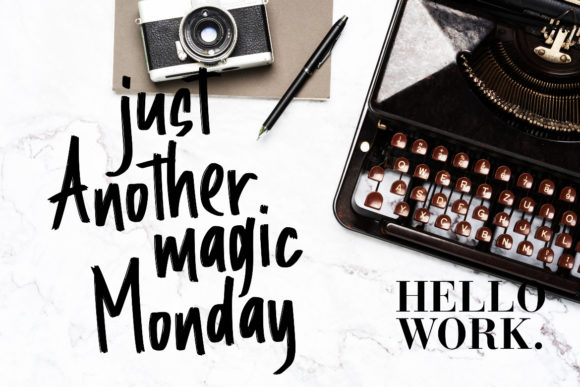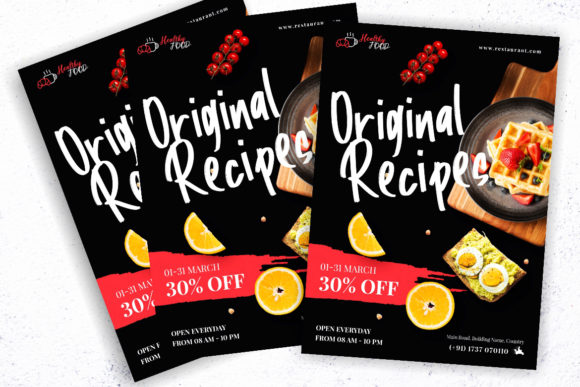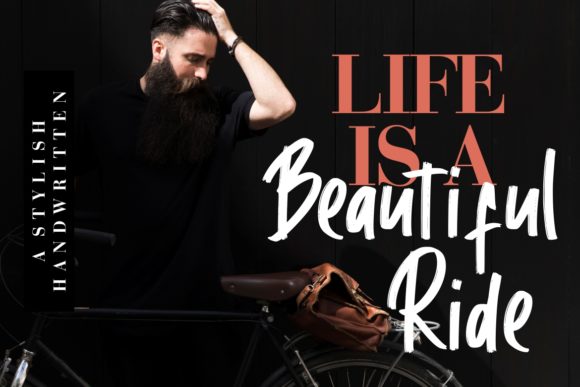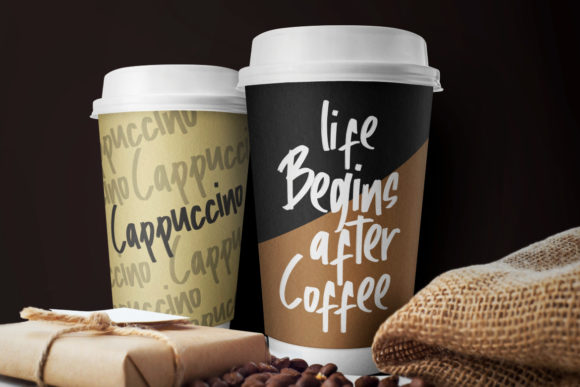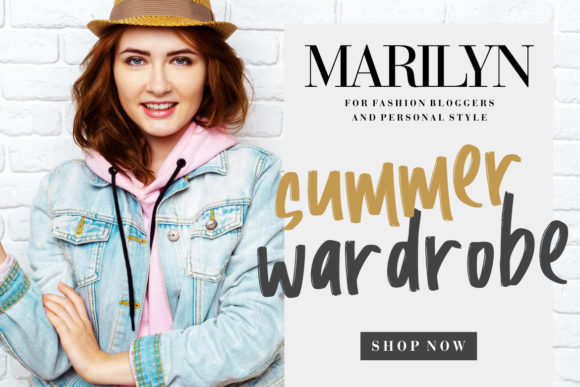
Introduction to Jabawoky Font
Have you ever stared at a blank canvas, pencil in hand, and felt the pressure to create something truly unique? That’s exactly what happened to many designers when they discovered the Jabawoky Font – a stylish handwritten font that breathes life into their creative projects.
Perfect for branding projects, logos, and social media posts, the Jabawoky Font is a game-changer for designers who crave high-quality, attention-grabbing designs. Its versatility makes it an invaluable design resource, suitable for everything from wedding designs and product packaging to labels and watermark designs.
Key Features of Jabawoky Font
- High-quality, unique font design ideal for creative projects requiring a distinctive touch.
- Designed to be highly customizable, making it an excellent choice for designers seeking a font that can be tailored to their specific project needs.
- Includes a comprehensive character set, supporting a wide range of languages and ensuring effective communication across diverse audiences.
Honest Review: Jabawoky Font
I recently stumbled upon the Jabawoky Font, and I have to say it’s been a game-changer for my creative projects. The high quality of this font has impressed me, and it’s definitely a valuable addition to any design resource.
- ⚠️ Limited character set, which may not be suitable for long-form texts
- ⚠️ May not be as customizable as other fonts in the market
Overall, I’m really impressed with the Jabawoky Font. It’s a solid choice for any design project, and its high quality is undeniable. I’d definitely recommend it to fellow designers looking for a reliable and versatile font.
Tips for Getting the Most Out of Jabawoky Font
Experiment with different font sizes, colors, and styles to achieve a unique look. You can also combine the Jabawoky Font with other design elements to create a visually appealing design.
The Jabawoky Font is ideal for creative projects such as logos, infographics, and social media graphics. You can also use the font to create engaging presentations, documents, and websites.